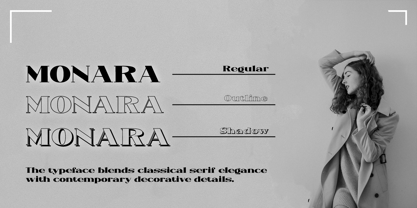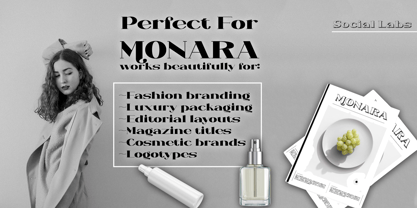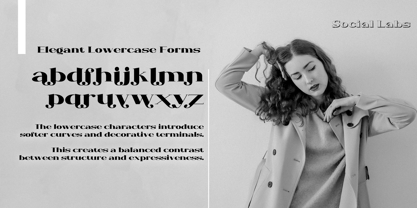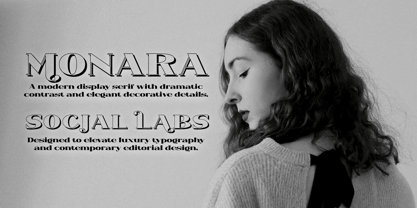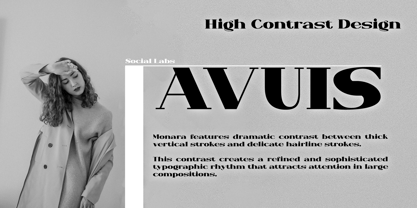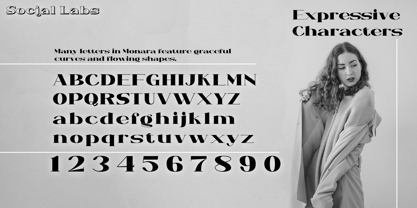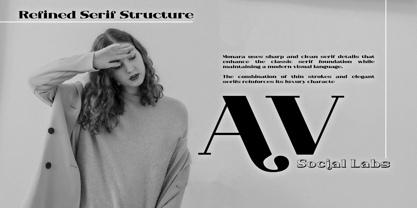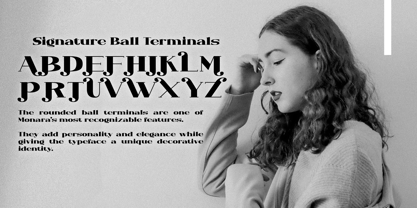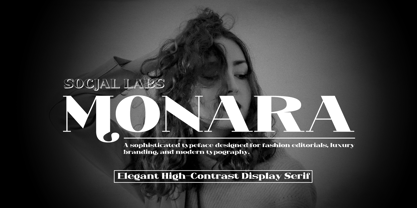
Monara
by Social Labs
The Monara Font Family was designed by Muhammad Naufal and published by Social Labs. Monara contains 6 styles and family package options. More about this family
Monara is a serif display typeface with dramatic thick-thin contrast and distinctive rounded terminals, presenting an elegant, modern, and classy impression. Inspired by editorial typography and the world of fashion, Monara is designed with bold letterforms that still have smooth curves, creating a strong and expressive visual character. This font is ideal for headlines, logos, fashion branding, premium product packaging, editorial design, and various design needs that aim to convey a luxurious and distinctive feel. Combining classic serif structure with modern decorative touches, Monara delivers a unique, artistic, and memorable typographic appearance.
Designers: Muhammad Naufal
Current Foundry: Social Labs